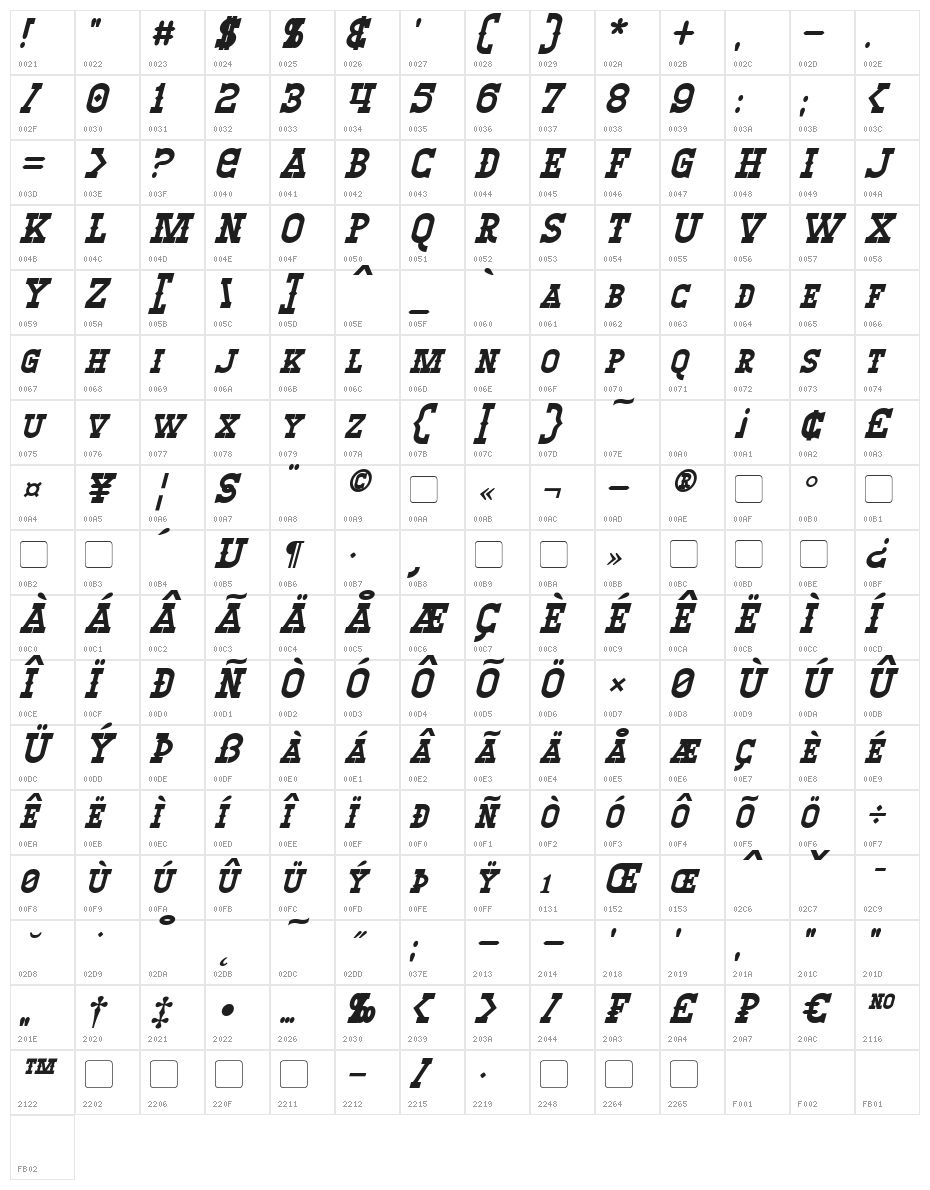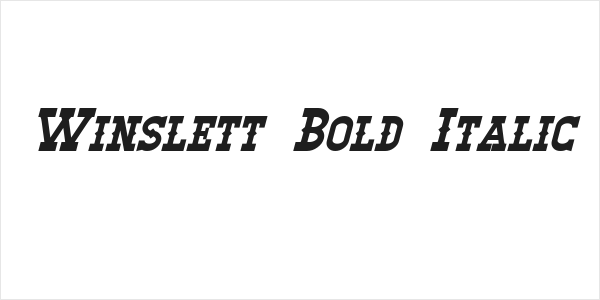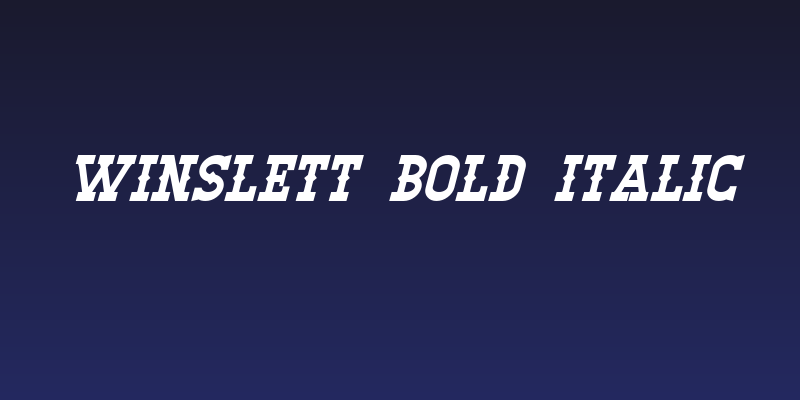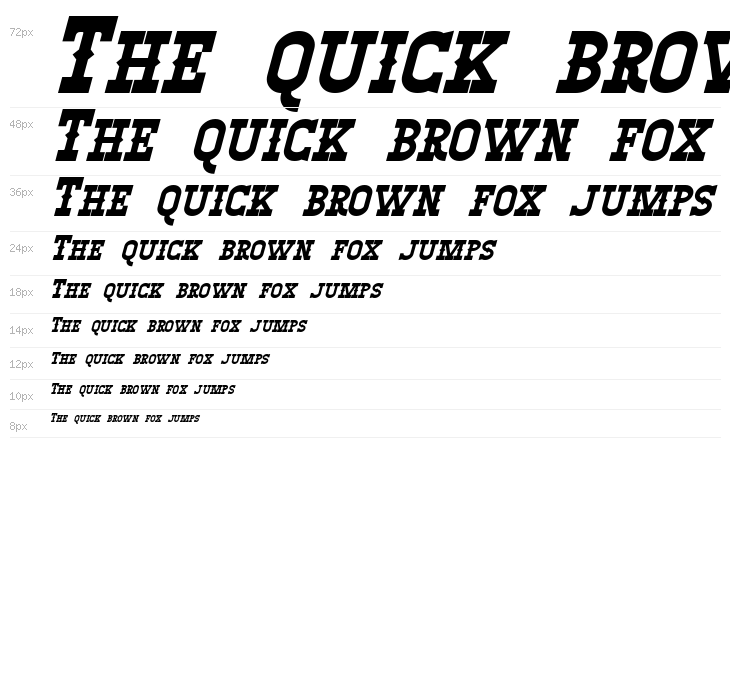
Winslett Bold Italic Font
Winslett Bold Italic Description
This font features a bold and italicized style, characterized by strong, thick strokes and a pronounced slant. The uppercase and lowercase letters maintain a consistent weight, providing a robust and impactful appearance. The numerals are equally bold, ensuring they stand out clearly. Special characters are designed with the same boldness, offering a cohesive look across all glyphs. The overall design is dynamic and eye-catching, suitable for making a strong visual statement.
| Proposed Projects | Ideal for headlines, posters, branding materials, and any design requiring a bold statement. |